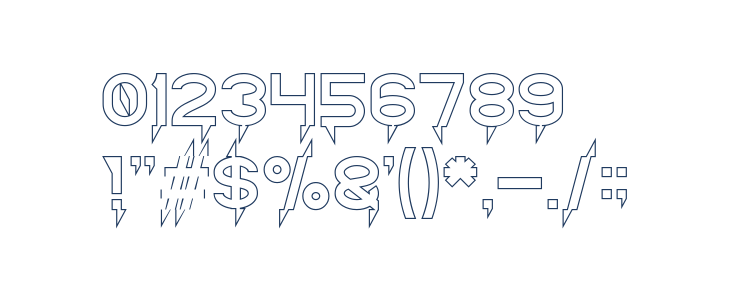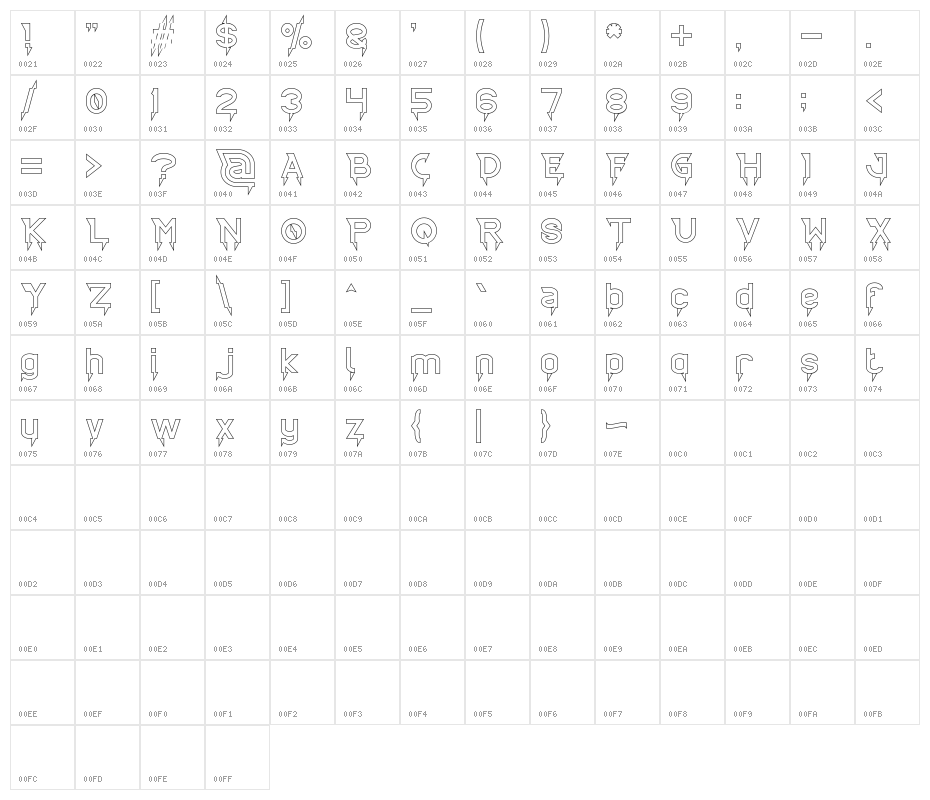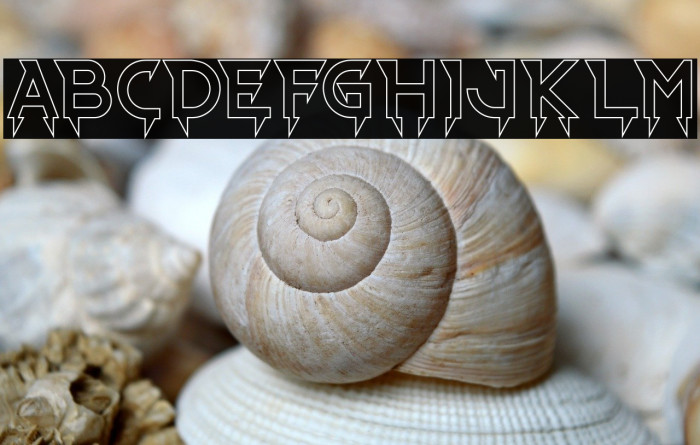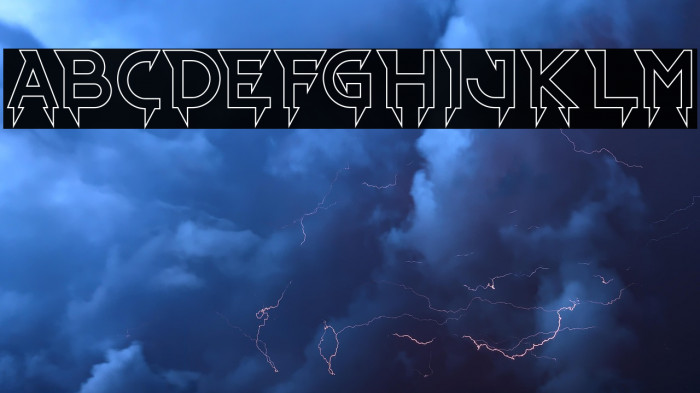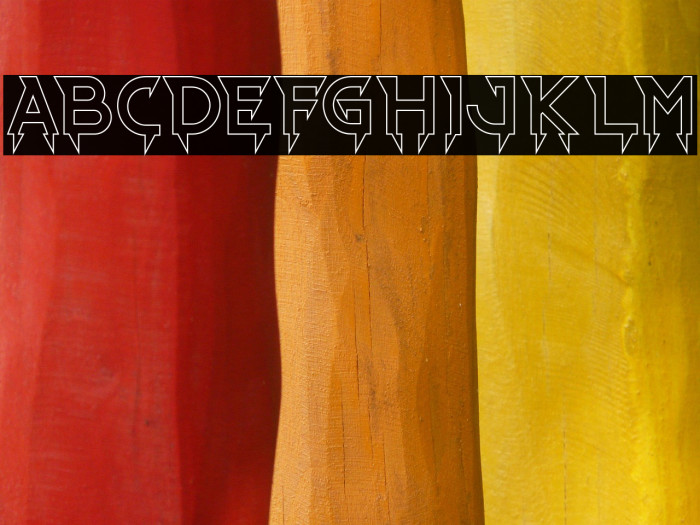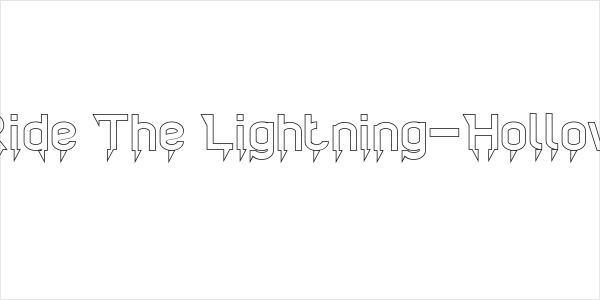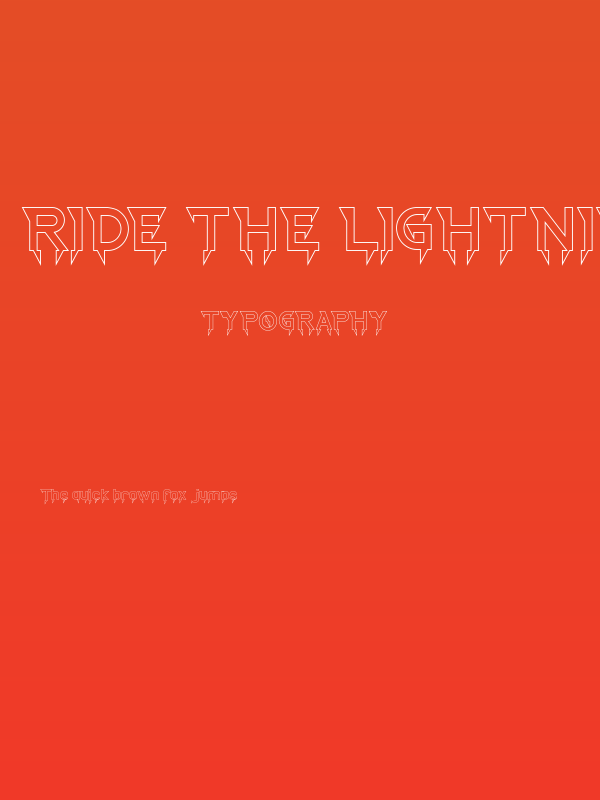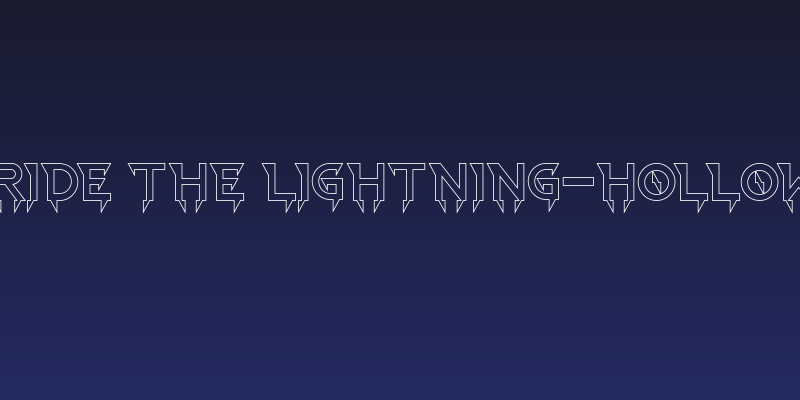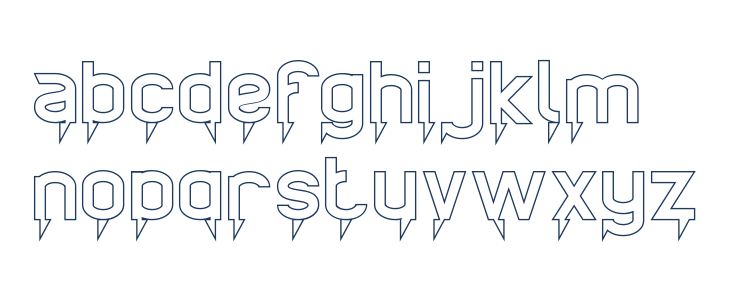
Ride The Lightning-Hollow Font
Ride The Lightning-Hollow Description
This font features a bold, electrifying design with sharp, angular edges that resemble lightning bolts. The uppercase letters are particularly striking, with each character incorporating dynamic, jagged elements that give a sense of movement and energy. The lowercase letters maintain a similar style, though slightly more subdued, providing a cohesive look across different text cases. The numbers and special characters follow the same theme, ensuring consistency throughout. The hollow design adds a unique touch, making it stand out in any application.
| Overall Style | Modern, Energetic |
| Proposed Projects | Ideal for music album covers, event posters, or any project needing a dynamic and energetic typeface. |